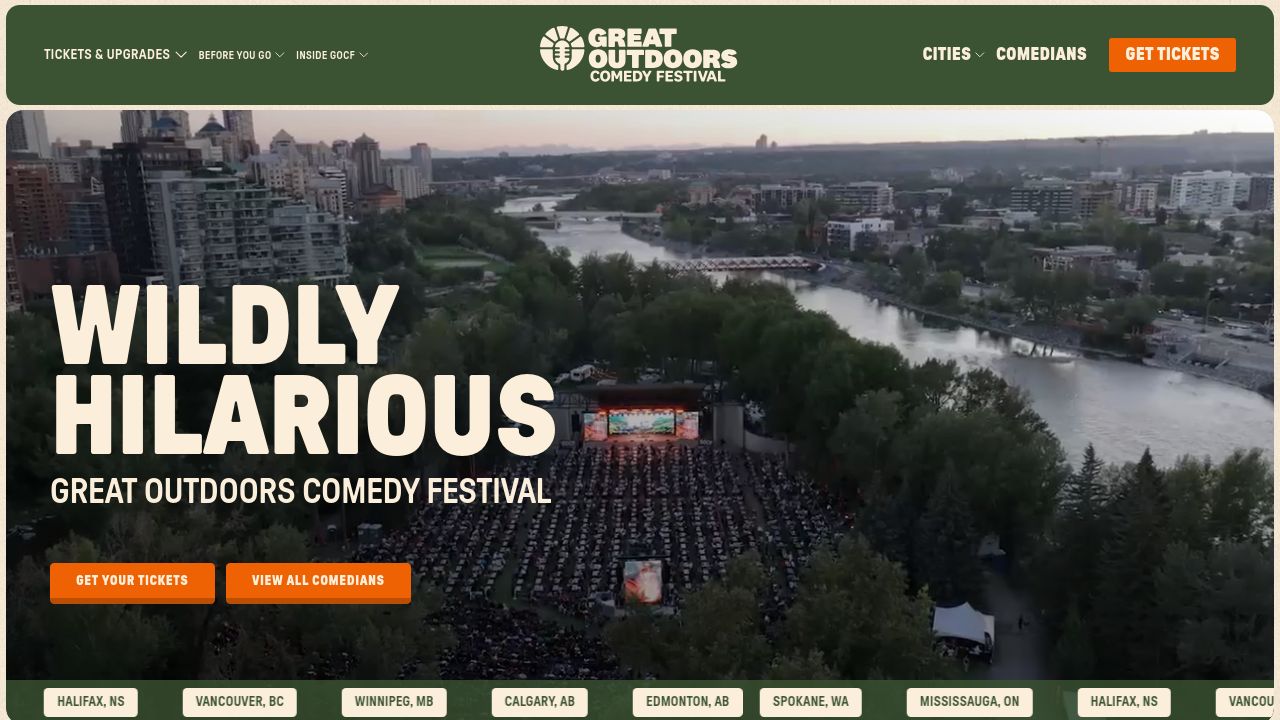
What fonts does Greatoutdoorscomedyfestival use?
At greatoutdoorscomedyfestival.com, the typography reflects the lively spirit of outdoor comedy. The site utilizes Arial for its clarity and accessibility, while helvetica-neue adds a contemporary touch. The bold GT-Pressura serves as a striking headline font, drawing attention to performances. With Gt Pressura Ext in use for subheadings, the festival’s branding is cohesive and engaging, appealing to comedy lovers enjoying shows beneath the open sky.
Frequently asked questions about Greatoutdoorscomedyfestival.com's fonts
What fonts are used on greatoutdoorscomedyfestival.com?
The primary fonts on greatoutdoorscomedyfestival.com include Arial, helvetica-neue, GT-Pressura, and Gt Pressura Ext, along with webflow-icons.
Where can I find the fonts used on the Great Outdoors Comedy Festival website?
How does GT-Pressura compare to other fonts?
GT-Pressura is bolder and more impactful than many standard sans-serif fonts, making it ideal for headlines, while its variations, like Gt Pressura Ext, offer versatility for subheadings.
What font stack is used for headings on the site?
Headings on greatoutdoorscomedyfestival.com typically use the font stack 'Gt Pressura', Arial, sans-serif, ensuring a strong visual presence.
What are the fallback fonts for this site?
The fallback fonts for greatoutdoorscomedyfestival.com include Helvetica, Segoe UI, Ubuntu, and Verdana, which ensure text remains legible if custom fonts fail to load.